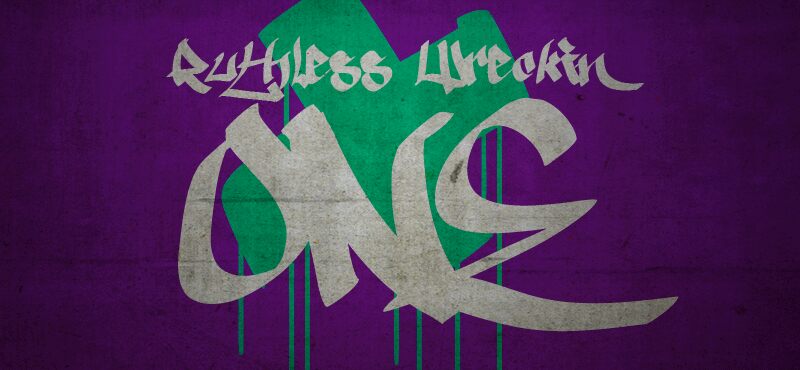
Ruthless Wreckin ONE by Måns Grebäck is a free graffiti font with the force of a fast, oversized spray tag. Sharp cuts, sudden tapers, and long sweeps fracture the dense silhouette.
On skate merchandise and music posters, its urgent movement reads as raw street lettering, while game title cards give the jagged forms a more combative edge. It also suits event graphics rooted in hip-hop, street art, or action sports.
Ruthless Wreckin ONE